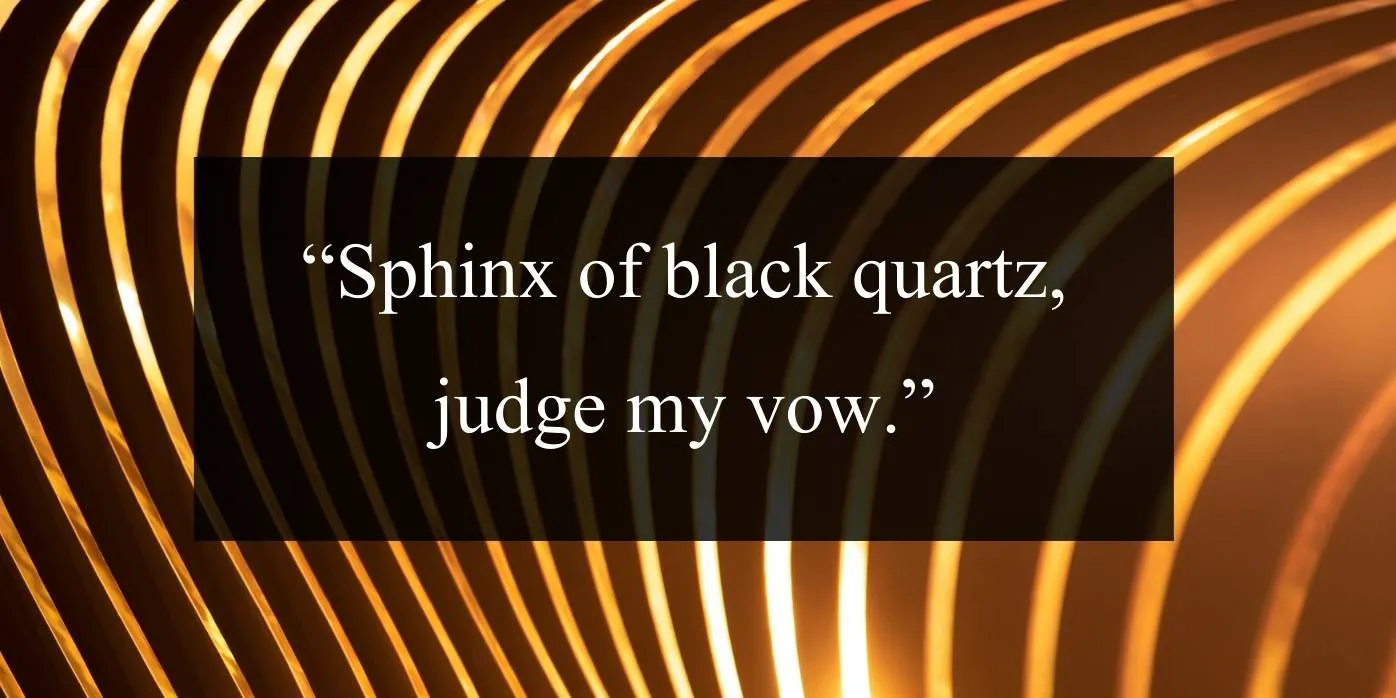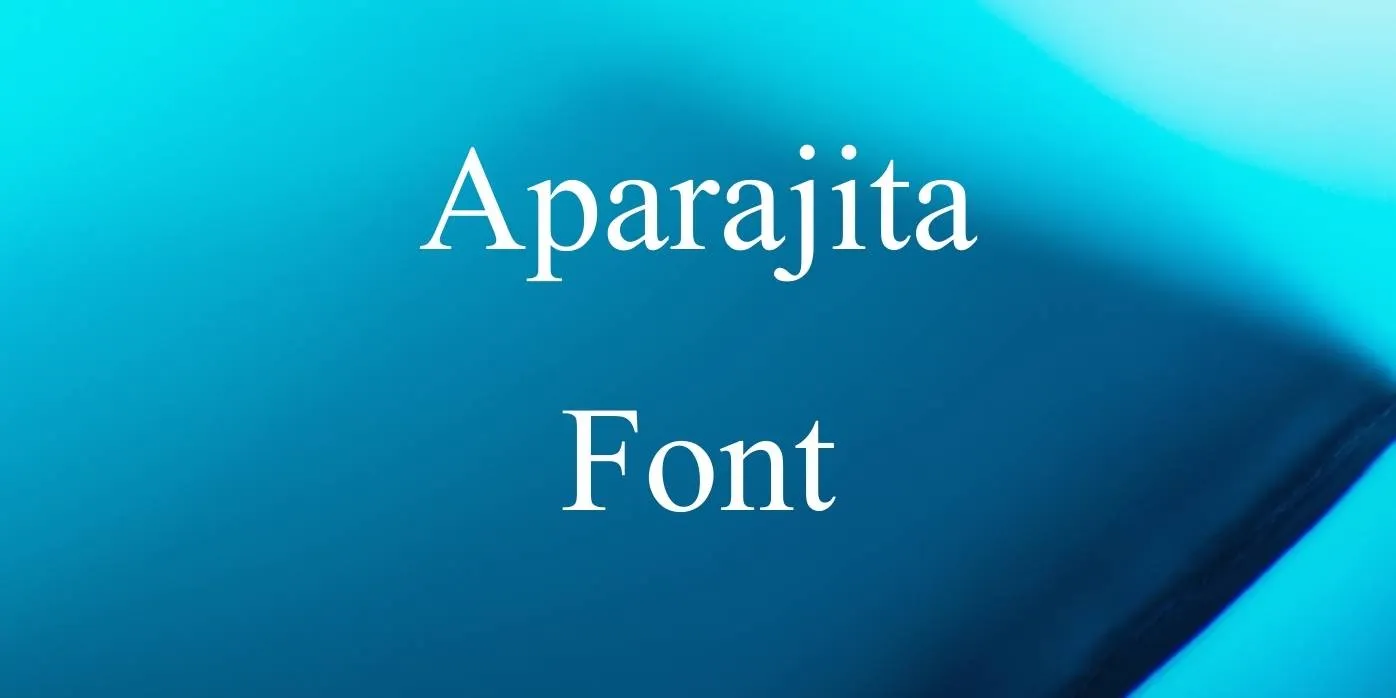
Aparajita Font
Today, we are going to introduce the most famous typeface, Aparajita Font. It was designed by Gerrit Noordzij. This typeface belongs to the Serif Categories. The distinguishing feature of this typeface is that it has very thin strokes and high contrast between the thick and thin parts of the letters.
This typeface is perfect for use in headlines, as well as in small doses of body text. It is also included in CSS Family. One of the main reasons why this Font is so popular is because it is very easy to read. This typeface is a great choice for projects that require a high level of legibility.
Additionally, it is very versatile and can be used in a wide range of applications. Its copy and paste are suitable for many works. Neutra Text Font is similar to this typeface. If you are looking for a typeface that is both stylish and easy to read, then this typeface is the perfect choice for your plans.